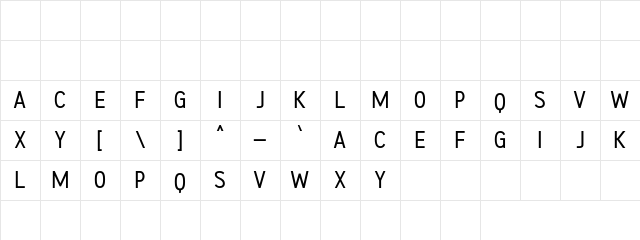
Kenzoestic Light
Foundry: NanDesign Foundry
Designer: Frada Nanda
Design Context for Kenzoestic
Kenzoestic is a composed and adaptable typeface that performs quietly and consistently across a wide range of design contexts. Its slender proportions lend an understated elegance to any composition.